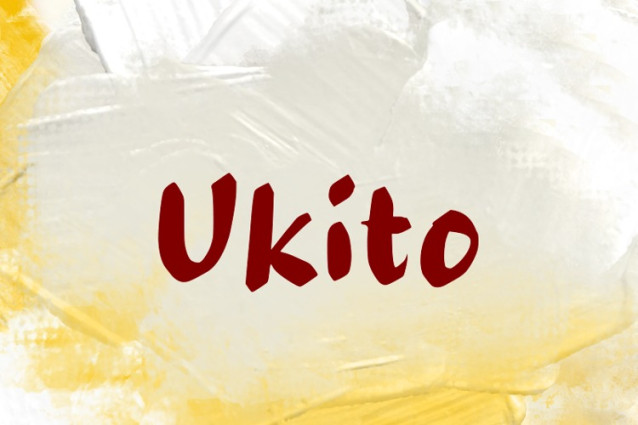
Ukito Font
Ukito Font is a chunky, comic, and cartoon display font. With its neat and joyful personality, this font will enhance any project you wish to create!